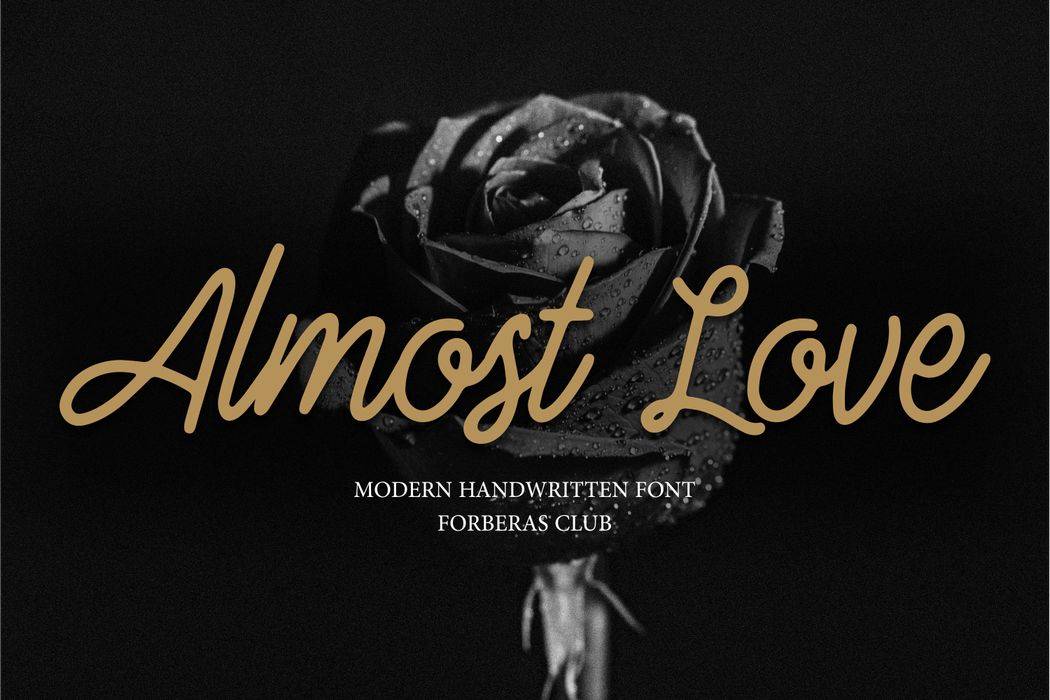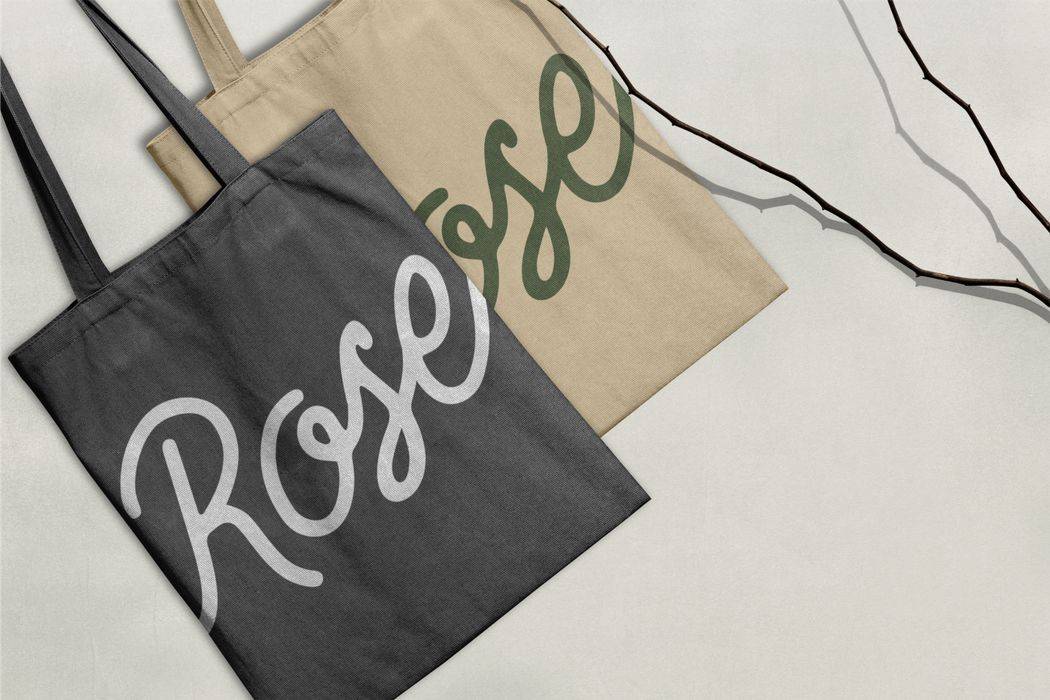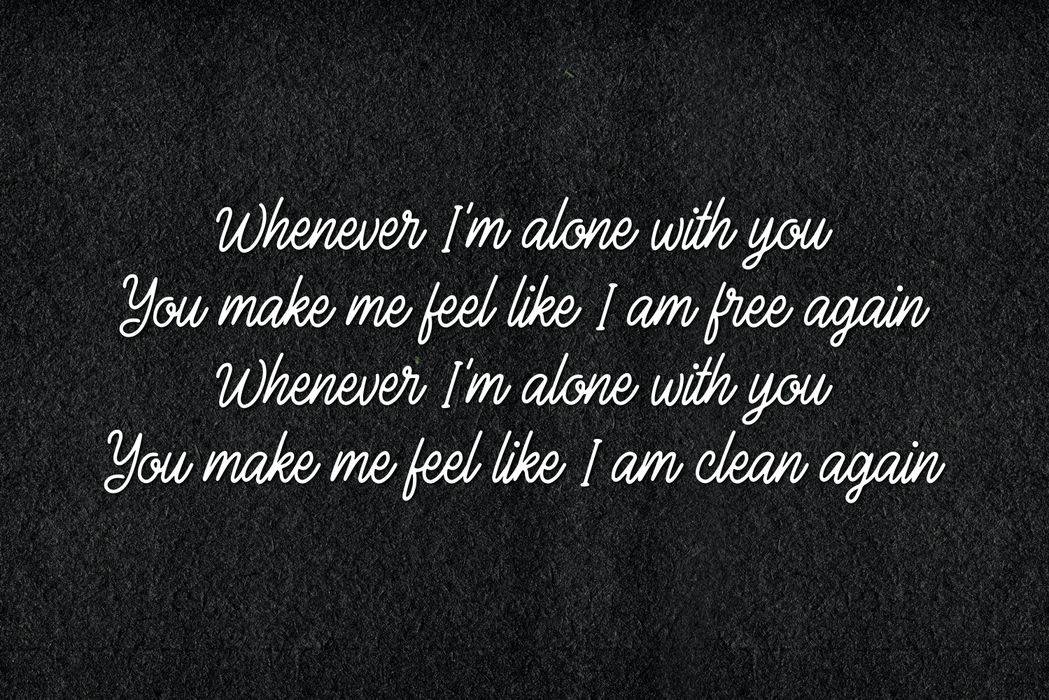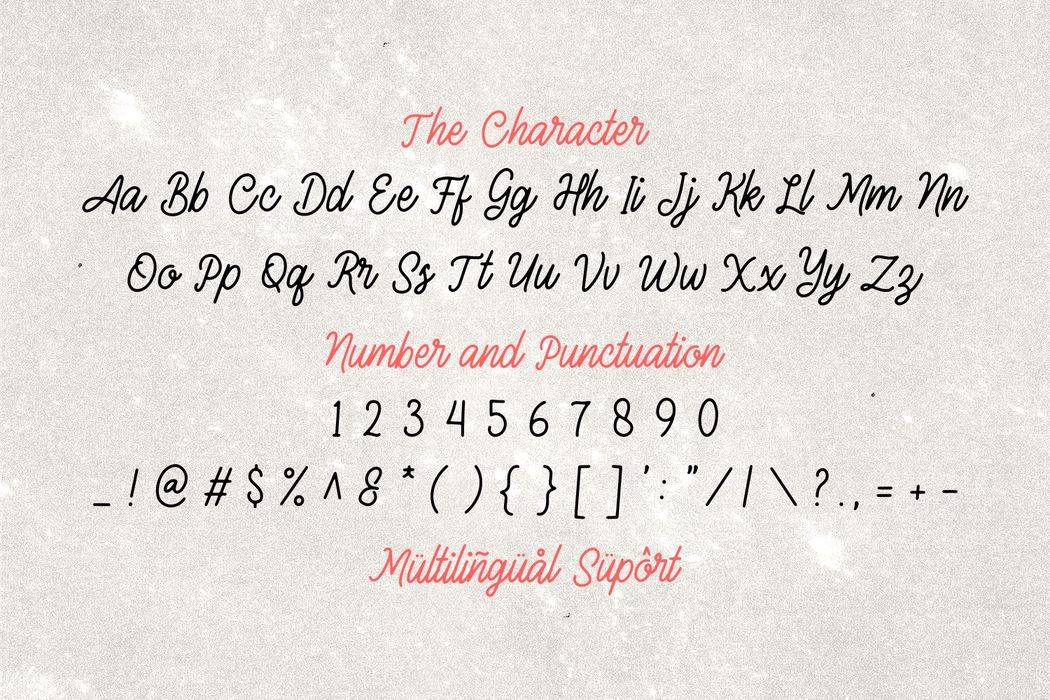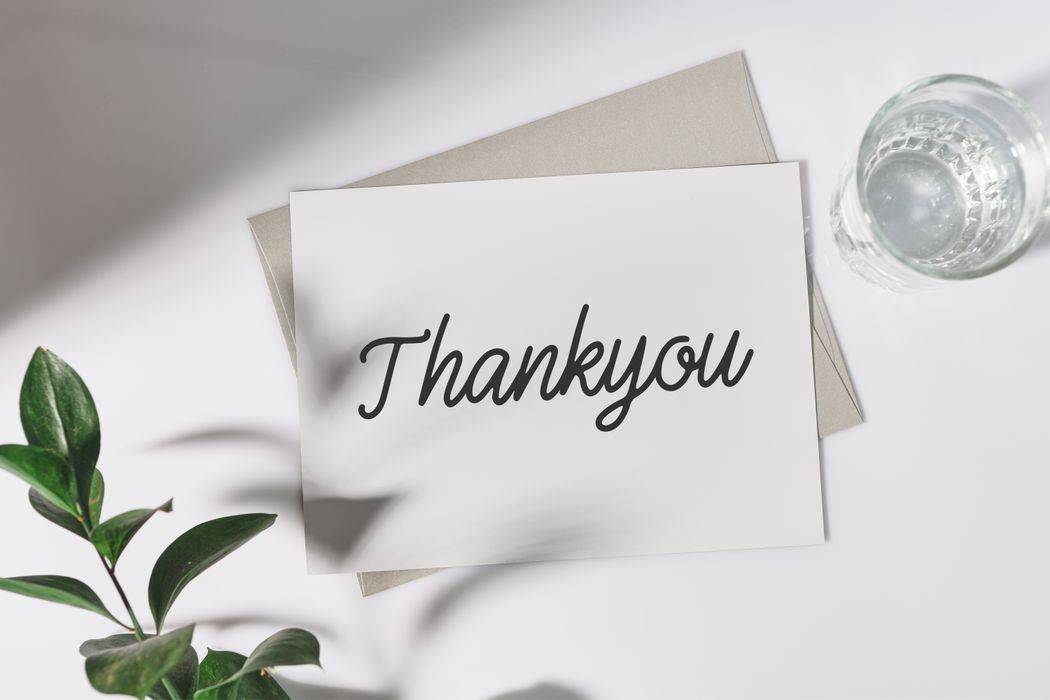
Almost Love is a charming script font featuring smooth, flowing strokes that mimic elegant handwriting with a casual yet refined feel. Its medium weight and slightly condensed letterforms make it perfect for adding a warm, personal touch to invitations, branding, and headings where a friendly and stylish vibe is desired. This font works well in designs aiming for approachable sophistication with a subtle vintage flair.
Almost Love Font